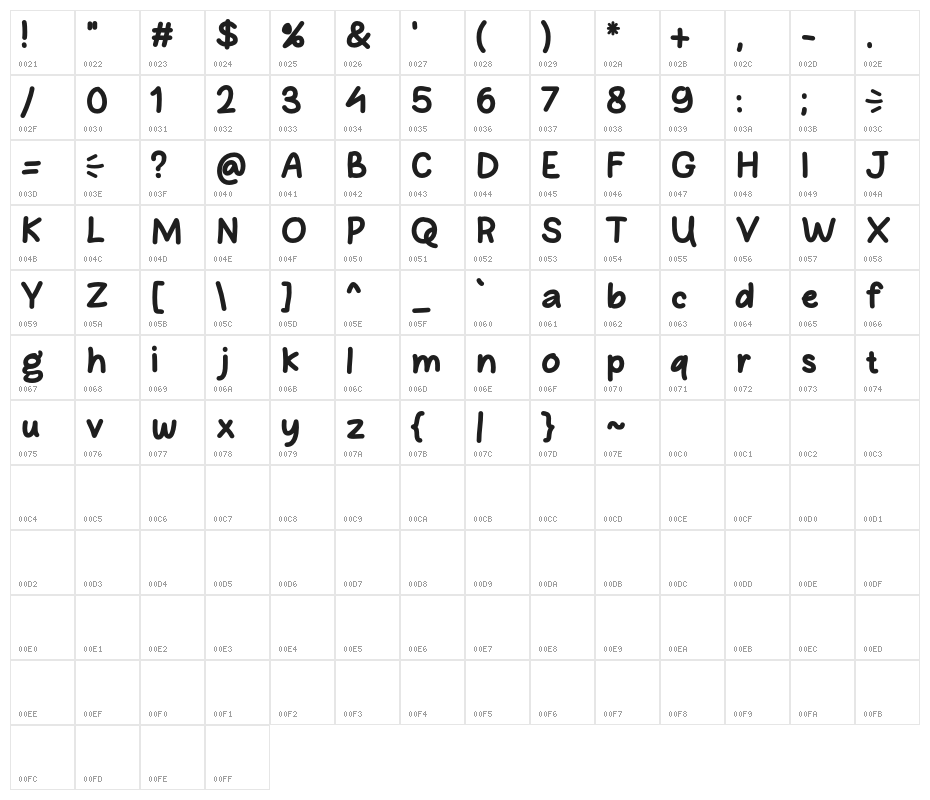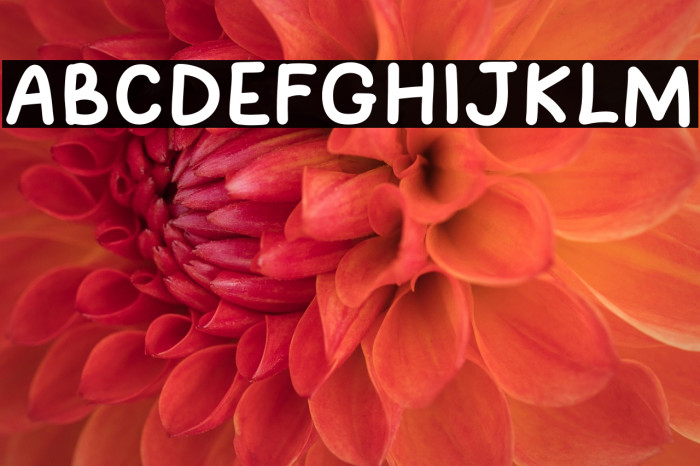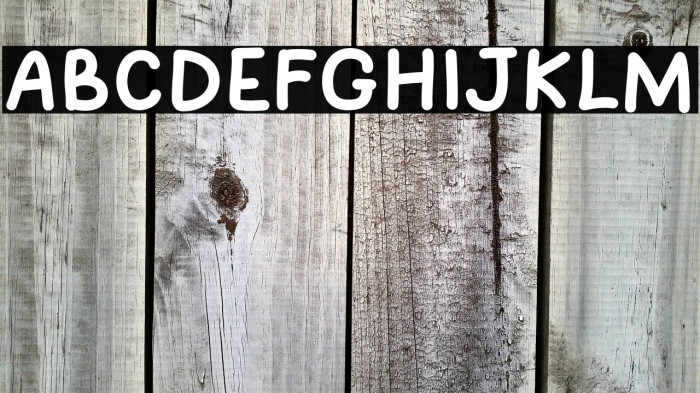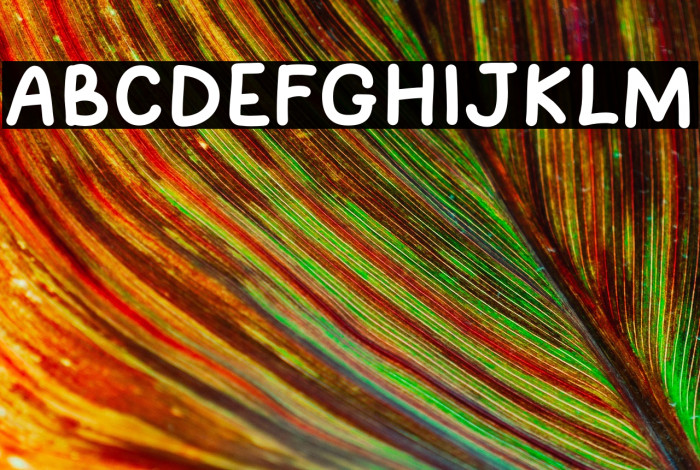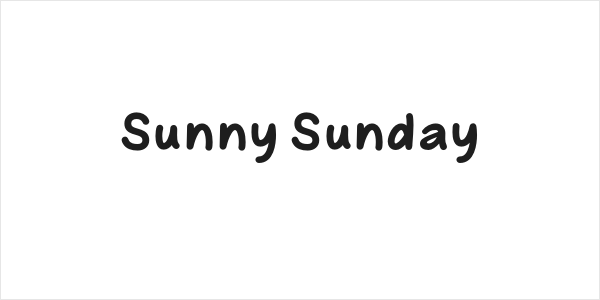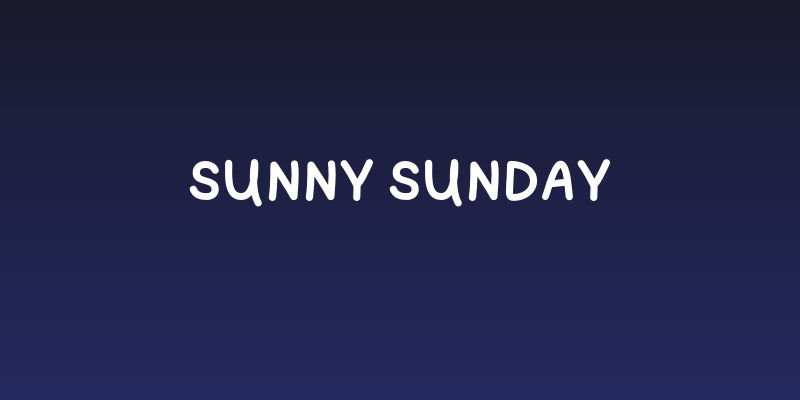
Sunny Sunday Font
Sunny Sunday Description
This playful and rounded font exudes a friendly and approachable vibe, perfect for casual and informal designs. The characters are bold and slightly irregular, giving a hand-drawn appearance that adds a touch of whimsy. The letters are well-spaced, ensuring readability while maintaining a fun aesthetic. The numbers and special characters follow the same style, making the font versatile for various uses. Its unique charm makes it suitable for projects that aim to convey warmth and creativity.
| Proposed Projects | Ideal for children's books, greeting cards, playful branding, and social media graphics. |